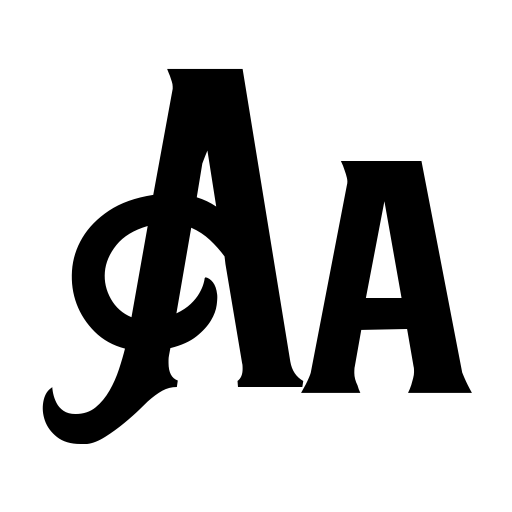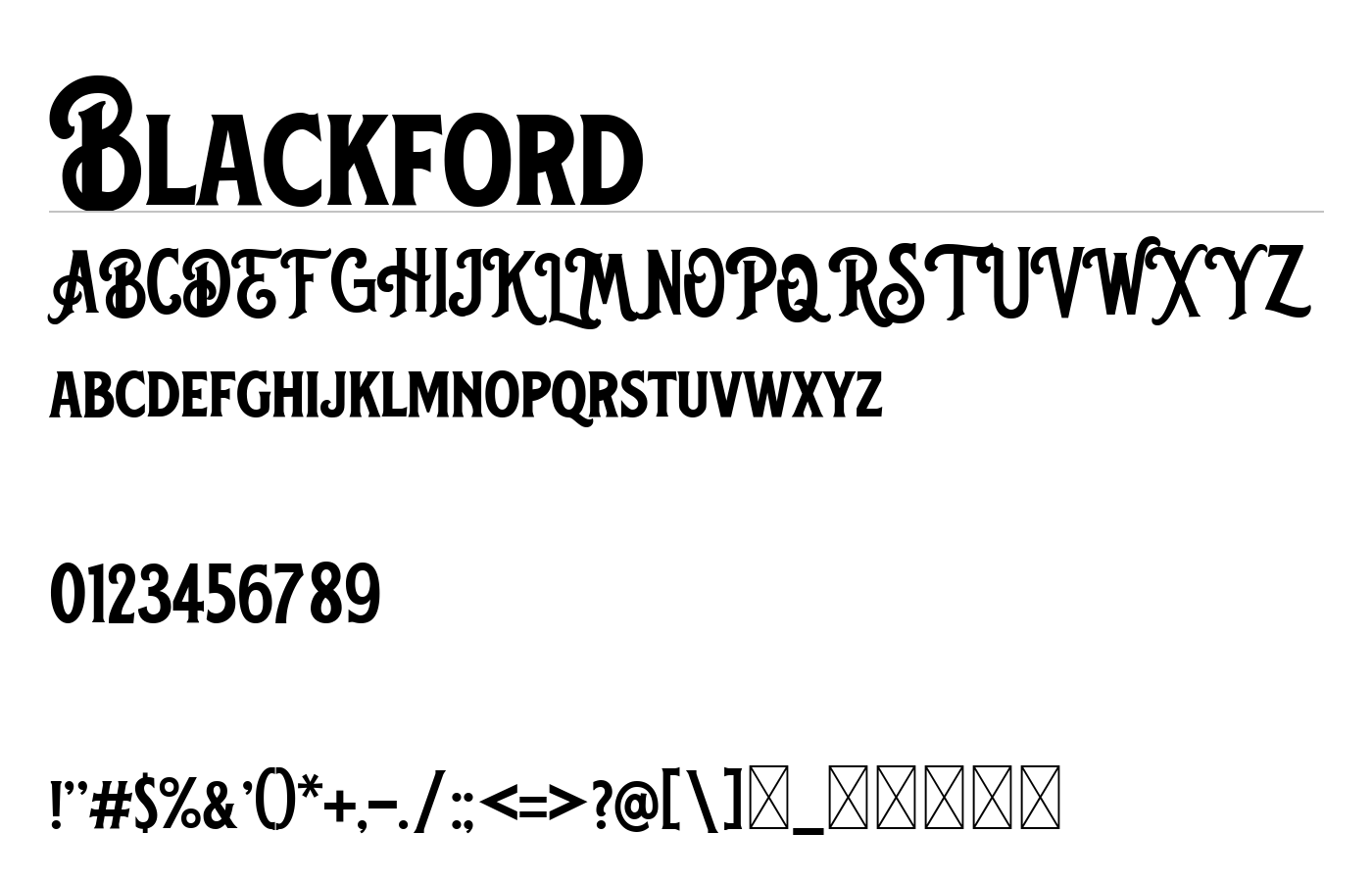
Blackford is a bold and distinctive serif font with sharp, geometric shapes and high contrast between thick and thin strokes. Its elegant yet playful design, featuring ornate uppercase characters alongside a more straightforward uppercase set, makes it ideal for eye-catching headlines, logos, and branding projects that seek a vintage or theatrical vibe. This font works well where a strong and memorable personality is needed to captivate the audience.
Blackford Font
About Blackford Font